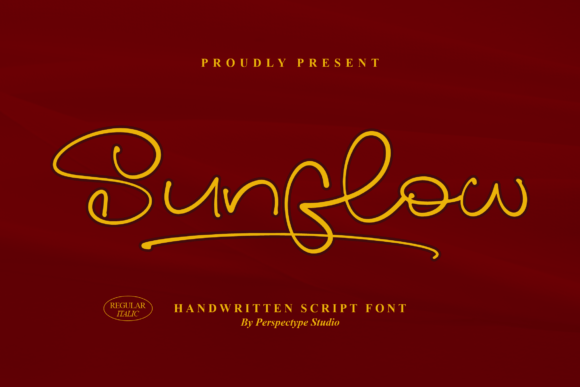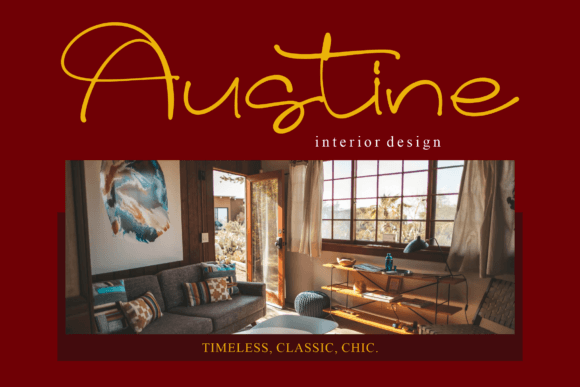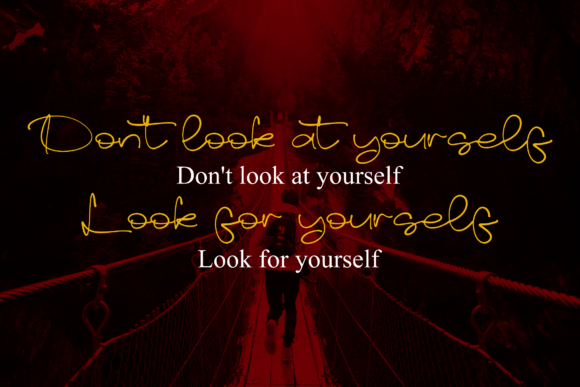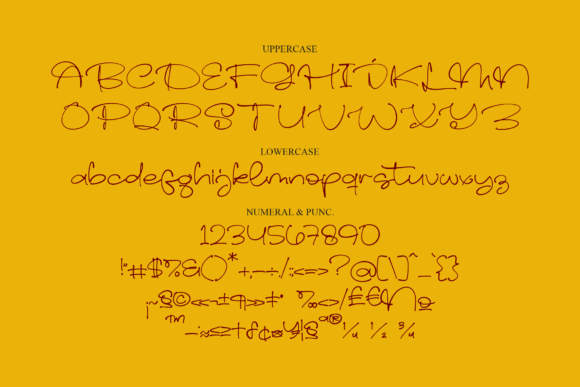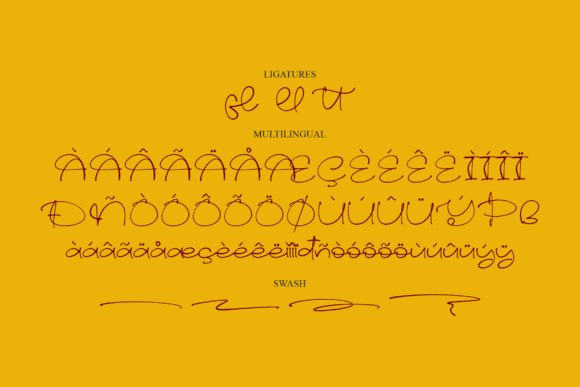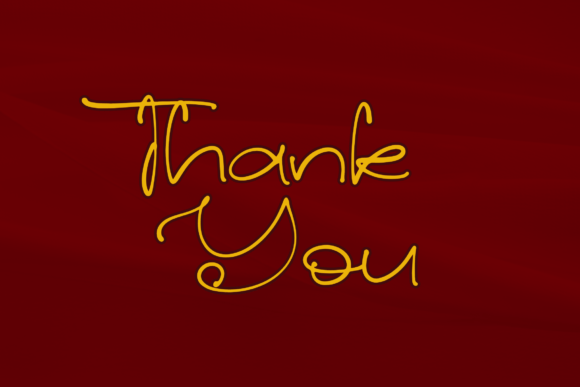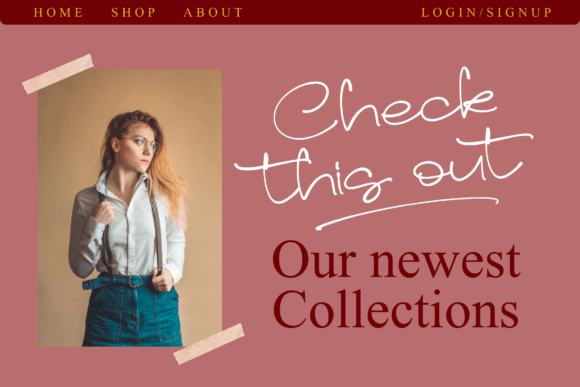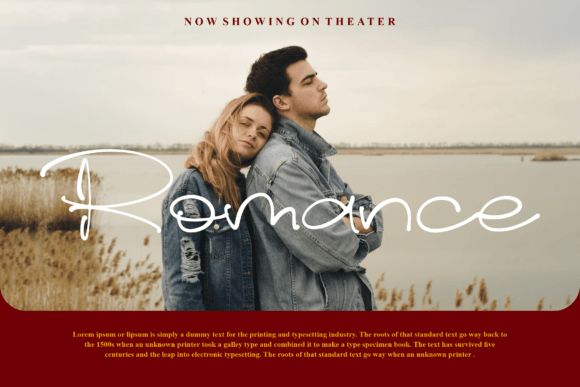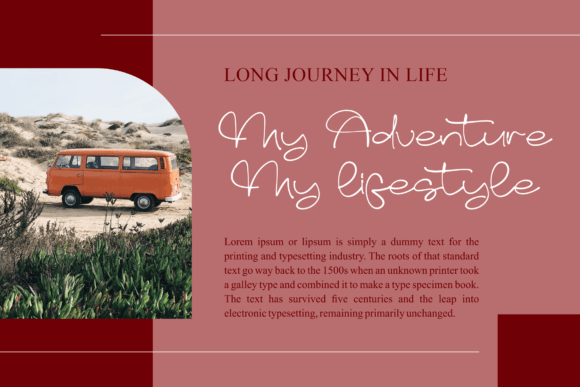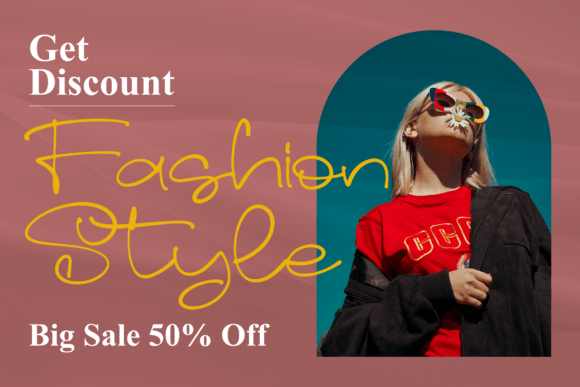
Sunflow Font
About Sunflow Font
“Sunflow” is a captivating handwritten script font that effortlessly blends warmth and elegance, making it an excellent choice for a myriad of creative projects. With its versatile and friendly design, “Sunflow” brings a unique touch to a wide range of applications.
Designed with creativity in mind, “Sunflow” is well-suited for logos and branding projects. Its flowing and organic letterforms add a personal and human touch to brand identities, making it memorable and relatable. The font’s ability to convey a sense of authenticity makes it an ideal companion for homeware designs, product packaging, and merchandise like mugs, where a personal connection with the audience is paramount.
For print materials, “Sunflow” shines in various contexts. Whether it’s quotes, posters, shopping bags, or book covers, the font’s expressive and readable script makes a statement. Its versatility extends to name cards, invitation cards, and greeting cards, where the warm and inviting nature of the font enhances the overall aesthetic.
Photography watermarks benefit from the artistic flair of “Sunflow,” adding a stylish signature touch to images. Special events, such as weddings or milestone celebrations, find a fitting companion in this font, as it effortlessly adds a beautiful script taste to labels and other design elements.
The font’s adaptability is further showcased in digital contexts, making it suitable for online use in social media graphics, watermarks, and any digital project that requires a touch of handwritten charm.
In conclusion, “Sunflow” is more than just a font; it’s a creative tool that enhances the visual appeal of a wide array of projects. Its handwritten charm, combined with a beautiful script taste, makes it a valuable asset for designers looking to infuse warmth and authenticity into their work. With “Sunflow,” each project can radiate a sense of friendliness and creativity that resonates with audiences across diverse design applications.